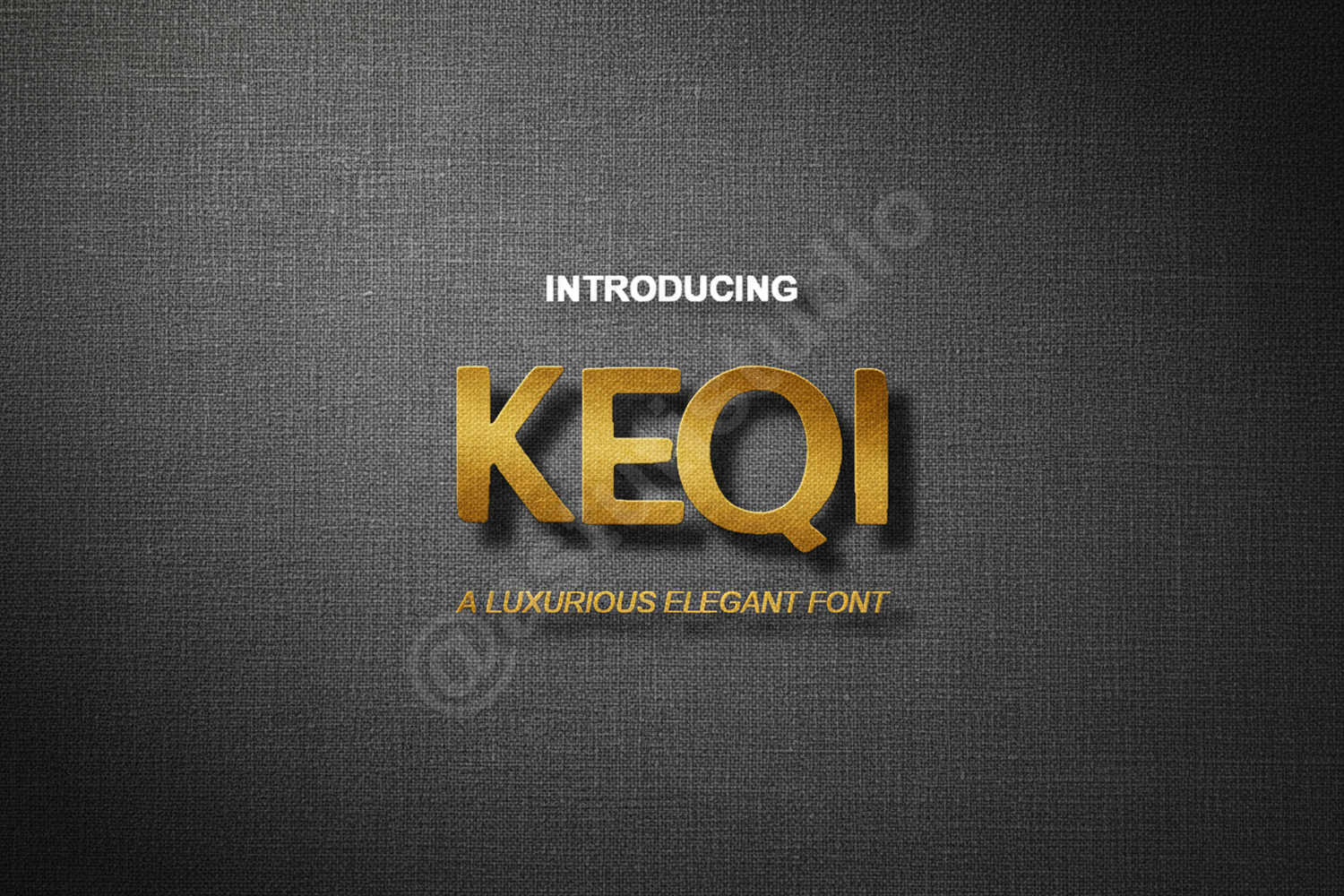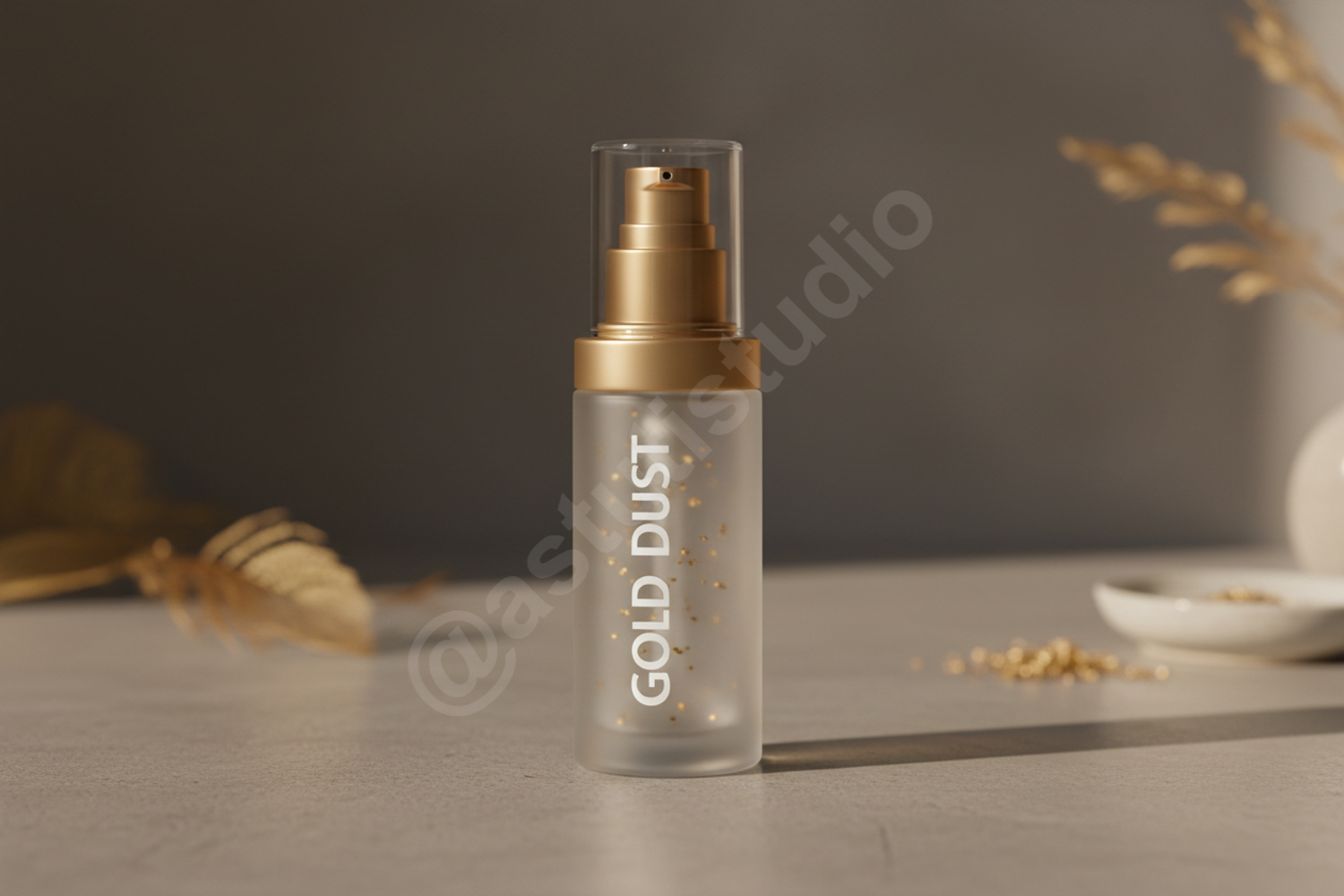
Keqi - Sophisticated Modern Sans Serif
Keqi
Elevate your design projects with Keqi, a premium modern sans serif typeface that balances minimalist aesthetics with high-end sophistication. Keqi is meticulously crafted to provide a clean, professional look that stands out in both digital and print media. Its versatile nature makes it an essential addition to any designer's toolkit, offering timeless appeal and exceptional legibility for both headlines and body text.
- Comprehensive set of uppercase and lowercase characters
- Numerals, punctuation, and symbols
- Multilingual support for international design projects
- Branding and Identity: Create memorable logos and cohesive corporate brand systems.
- Editorial Design: Ideal for high-fashion magazines, lookbooks, and professional editorial layouts.
- Wedding and Events: Add a touch of modern elegance to invitations, menus, and event signage.
- Web and Digital: Ensure a crisp and readable user experience for websites and social media assets.
- Packaging Design: Enhance luxury product appeal with clean and sophisticated typography.